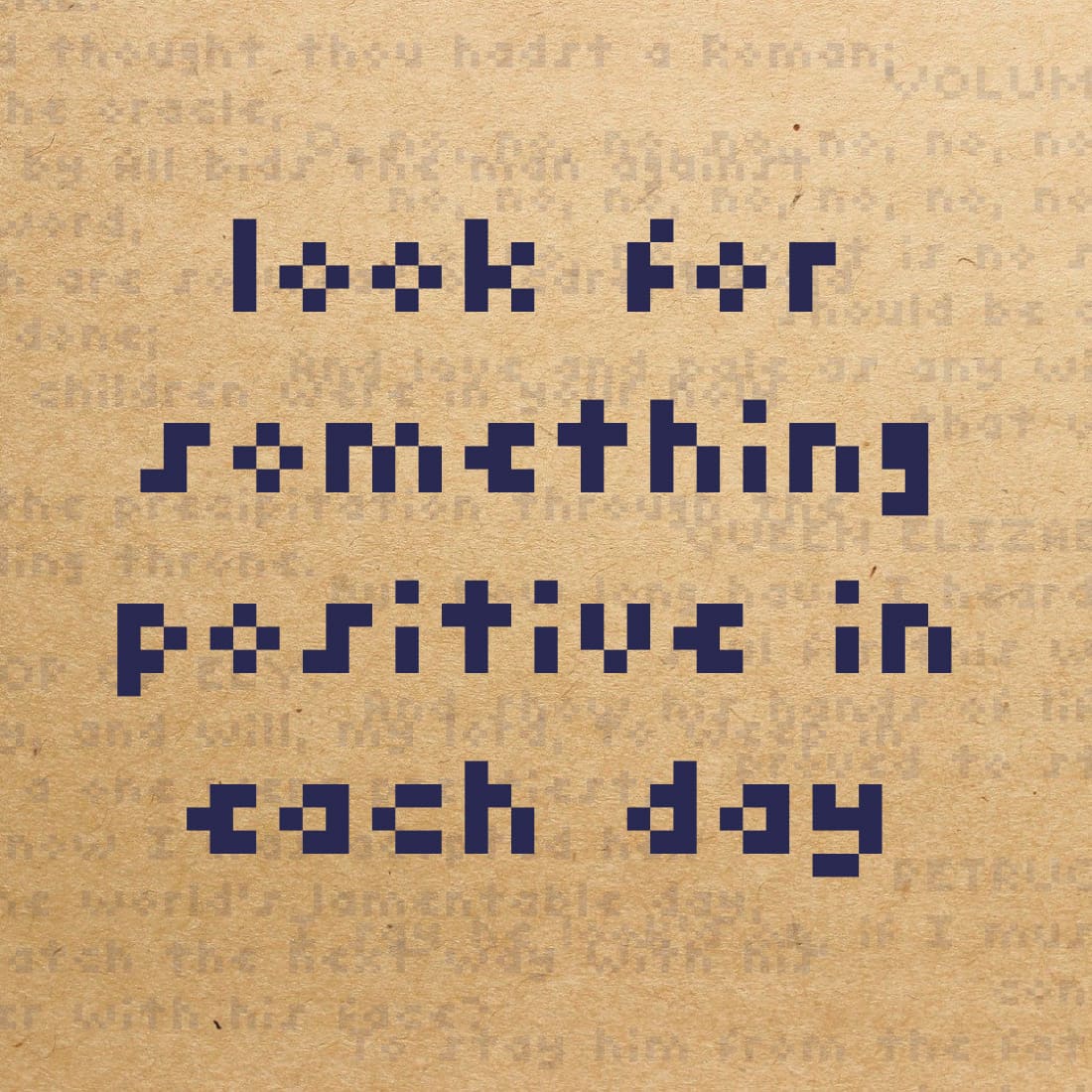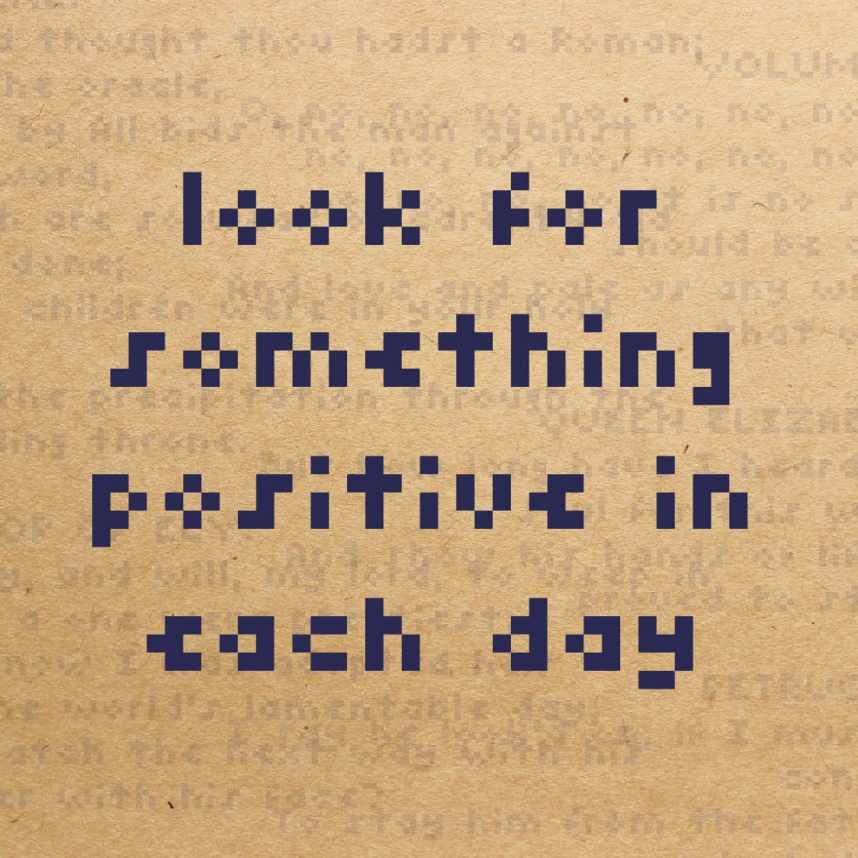
Tiny Font
Tiny Font is a unique gaming font. It is original and easy to use. Suitable for original prints and signatures, possibly some logos. Created by Dafont.com studio and given for free access and use.